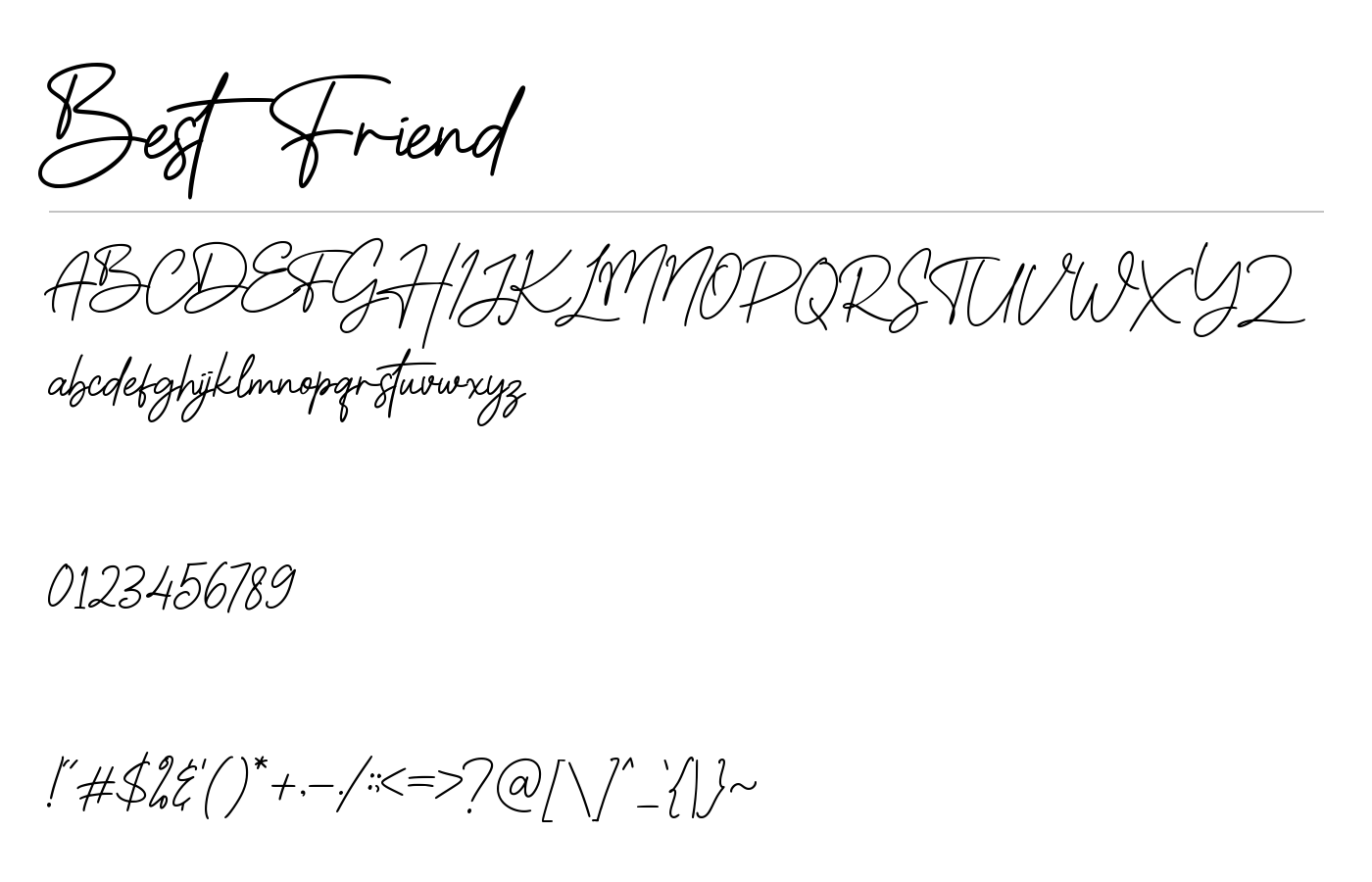
Best Friend Font is a delicate, handwritten script that combines elegance with a casual, personal touch. Its thin strokes and flowing letterforms create a light, airy feel perfect for invitations, branding, and creative projects that want to express warmth and friendliness. This font works best in logos, greeting cards, and stylish editorial design where a refined, approachable look is desired.
Best Friend Font
About Best Friend Font
| Font family | Best Friend Font |
| Designer | Mozatype.std |